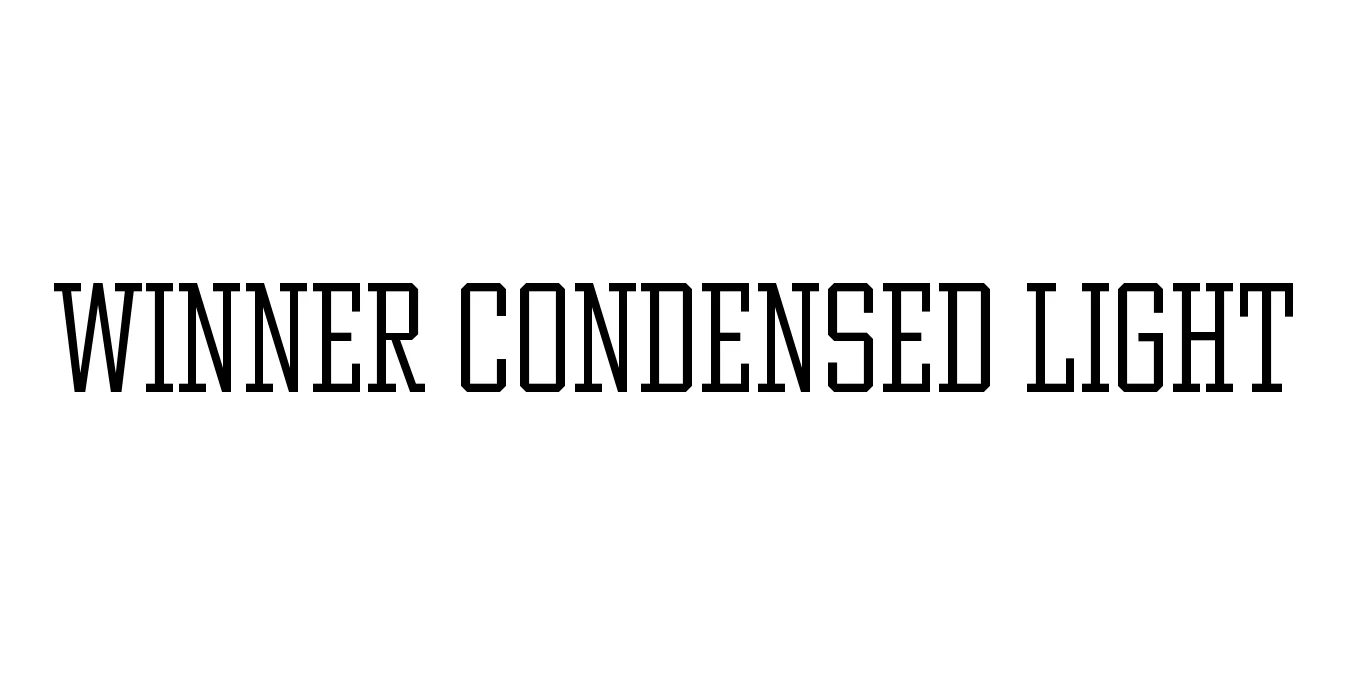
Winner Condensed Light
Designed by Christoph Koeberlin
| Category | Athletic / Sports |
| Designer | Christoph Koeberlin |
Winner Condensed Light is a standout member of the comprehensive Winner typeface family, meticulously designed by Christoph Koeberlin. It represents a modern evolution of the classic athletic block fonts typically found on American collegiate jerseys and vintage sports memorabilia. While traditional athletic fonts often feel rigid or limited, this condensed light weight offers a refined elegance and technical precision that makes it suitable for contemporary design challenges where space is at a premium.
The history of the Winner family is rooted in the desire to create the ultimate sports font system. The Condensed Light variant specifically focuses on legibility and grace, moving away from the heavy bulk of standard varsity types. This makes it an exceptional choice for designers looking to convey a sense of speed, agility, and modern professionalism in sports journalism, high-end athletic branding, and sophisticated editorial layouts.
Winner Condensed Light Best Uses
Perfect for player names and numbering where horizontal space is limited.
Excellent for sports-themed magazines, headlines, and statistical sidebars.
Ideal for streetwear and varsity-style clothing graphics.
A strong foundation for athletic team identities and fitness brand logos.